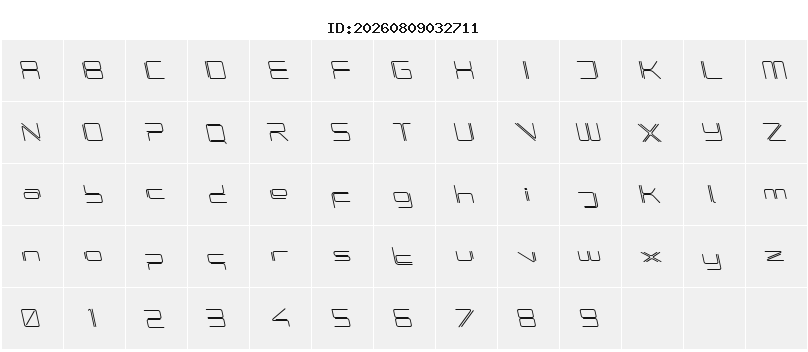
• Font Name: PhutureRndOpen
About PhutureRndOpen.ttf
PhutureRndOpen.ttf is a modern, elegant sans-serif font designed for ultimate readability and visual harmony. Perfect for branding, headlines, web design, and print materials.